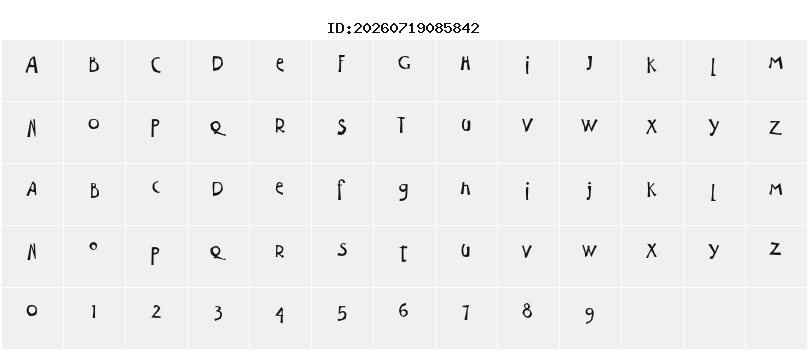
Coltrane Preview
• Font Name: Coltrane
• Full Font Name: Coltrane
About Coltrane.ttf
Coltrane.ttf is a modern, elegant sans-serif font designed for ultimate readability and visual harmony. Perfect for branding, headlines, web design, and print materials.